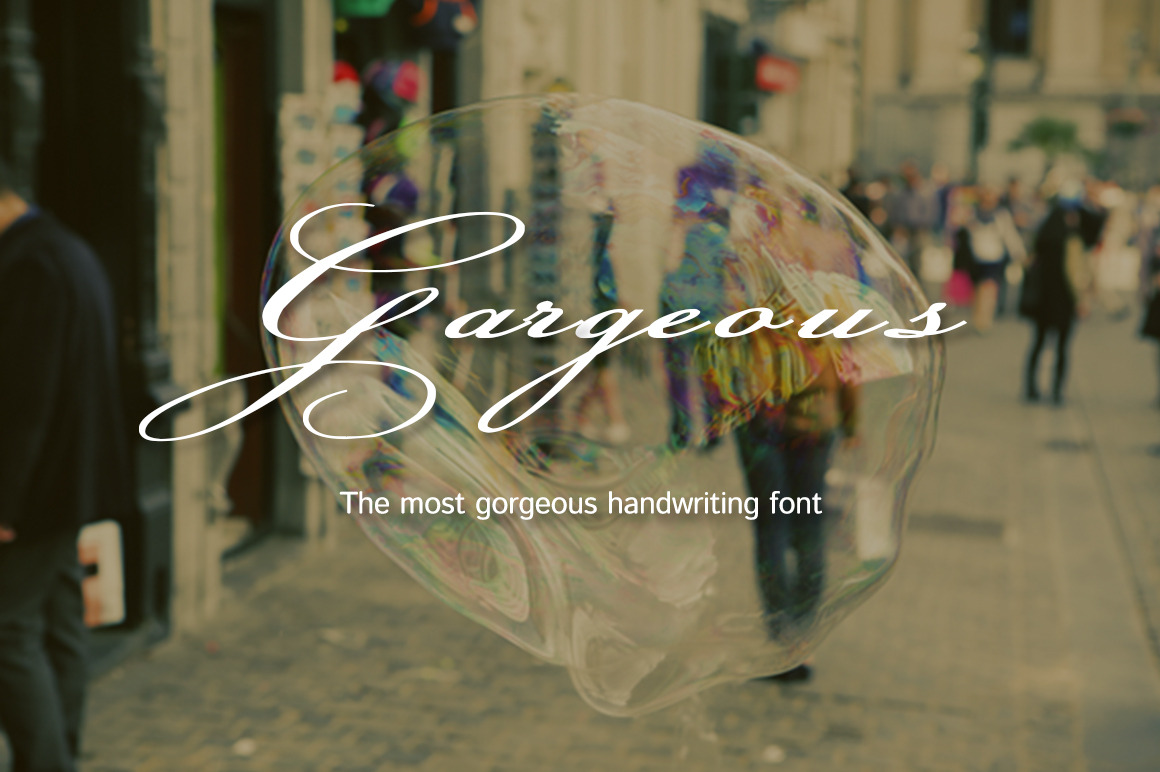
Gorgeous-Handwriting font
It is concise style,It has a flowing handwriting.It is suitable for all kinds of style, suitable for: Web design, Graphic design, Posters, Concert, books, Goods, Gift packaging, stationery, Magazine, etc. It is very cool, It is suitable for making the logo.